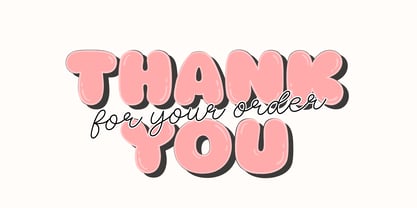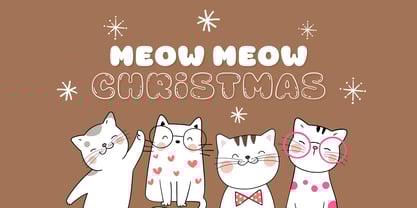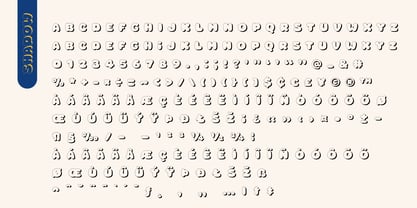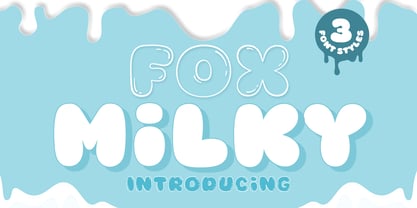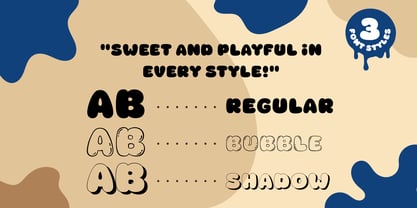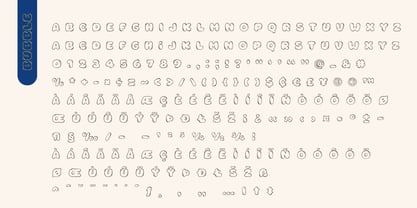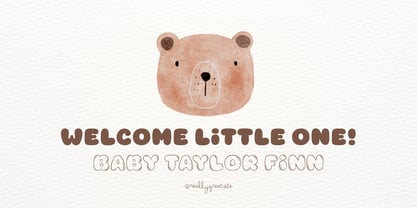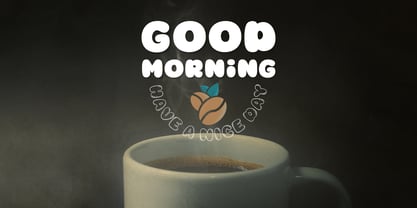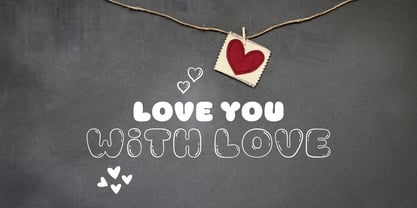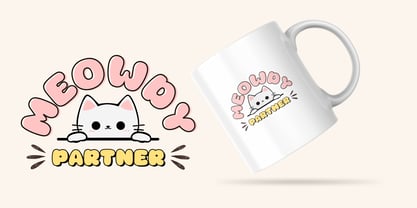
Fox Milky
The Fox Milky Font Family was designed by Rattana Rattanawan and published by Fox7. Fox Milky contains 3 styles and family package options. More about this family
Fox Milky – Sweet and Playful in Every Style!
Fox Milky is a fun and bubbly display font family that brings joy to your designs. With 3 charming styles — Regular, Bubble, and Shadow — this font is perfect for cute branding, kids’ products, mugs, t-shirts, logos, stickers, and more!
Regular: Bold and clean with a soft rounded look — simple yet full of personality.
Bubble: Outlined and hand-drawn feel — playful and perfect for coloring or layering.
Shadow: Adds depth and fun — great for headlines that pop!
Each style is crafted to keep your designs lighthearted and full of charm. Fox Milky is perfect for designers who love creating adorable, eye-catching visuals with a soft, whimsical touch.